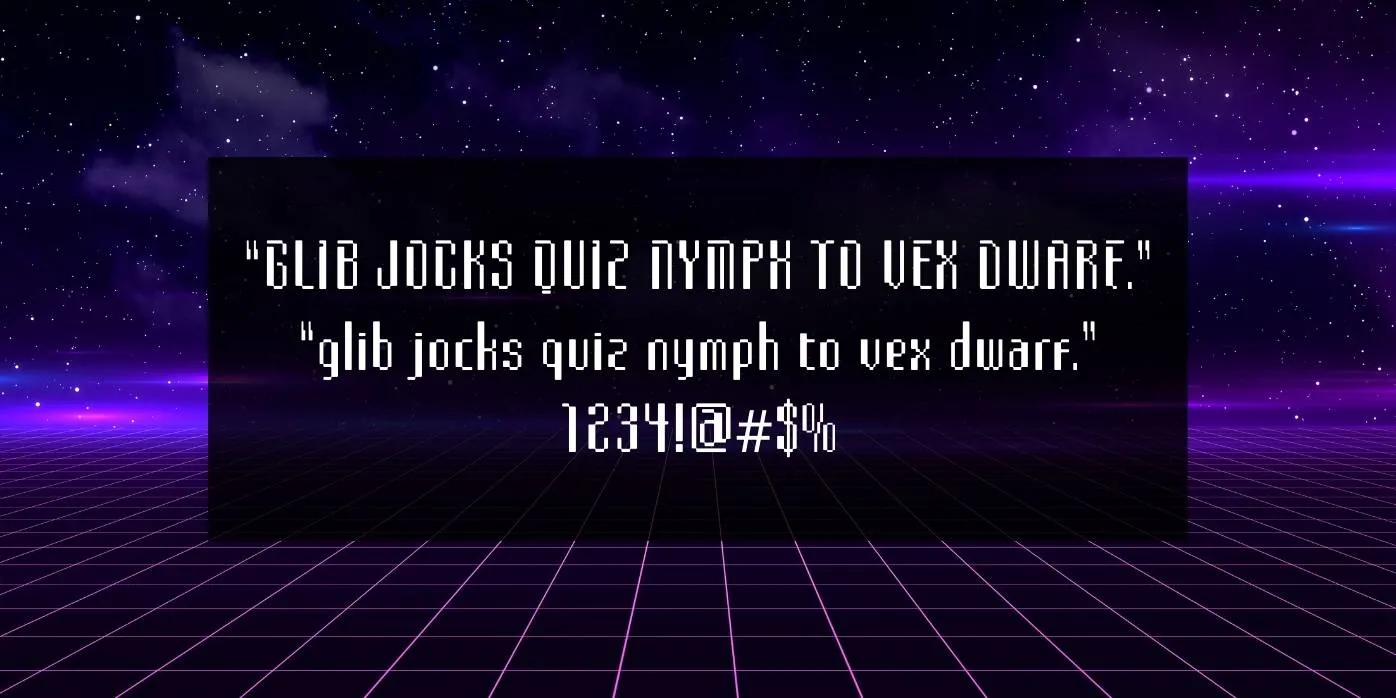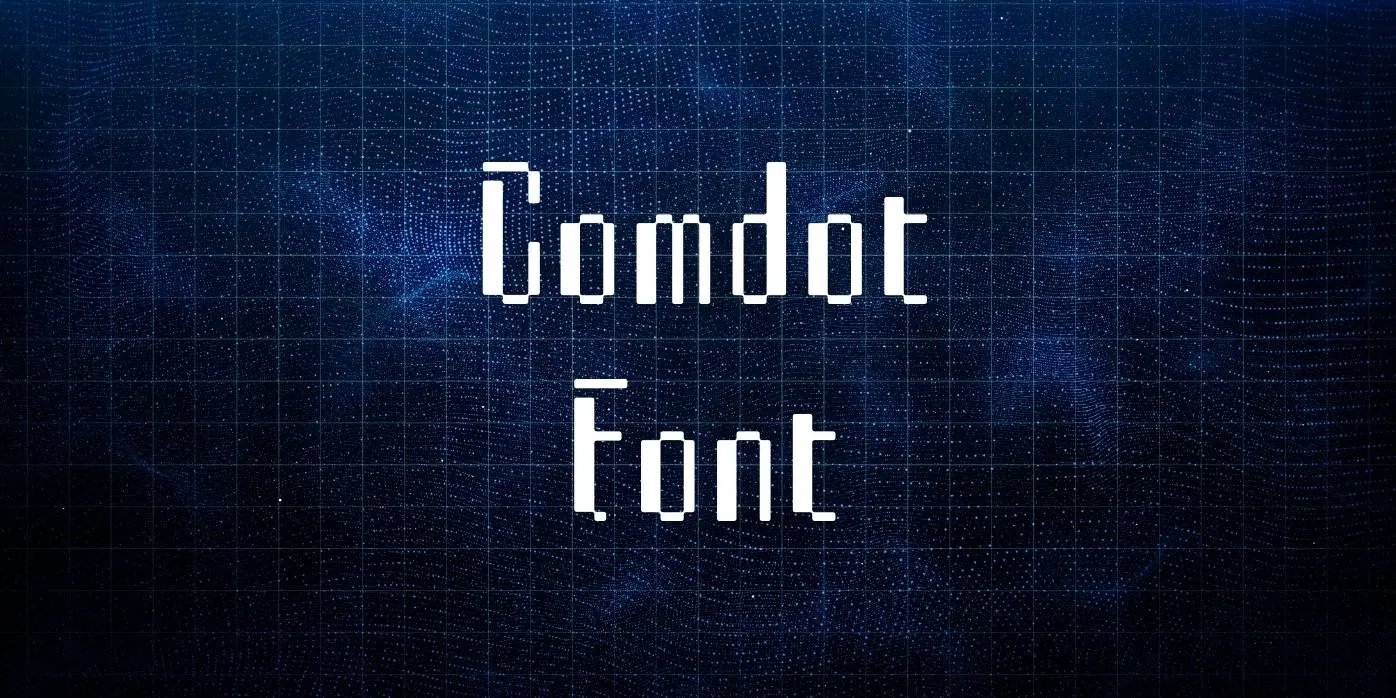
Comdot Font
In this post, we discuss a modern typeface that is known by the name Comdot Font. This gorgeous typeface belongs to the display font family. The main designer of this family was Typefonts Foundry. This company launched it for the first time on 2 June 2018.
Comdot Font is a very unique and stylish typeface that can be used for various purposes. This font family includes three weights, i.e., light, regular, and bold. All of these styles have their own distinctive look. Moreover, this display font also supports multiple languages.
You can use the brothers font which has the same style and characters as this one. This modern typeface has a very clean and minimalistic design. It consists of simple yet stylish letters. The shapes of the Comdot Font letters are quite geometrical which makes them look sharp as well as elegant.